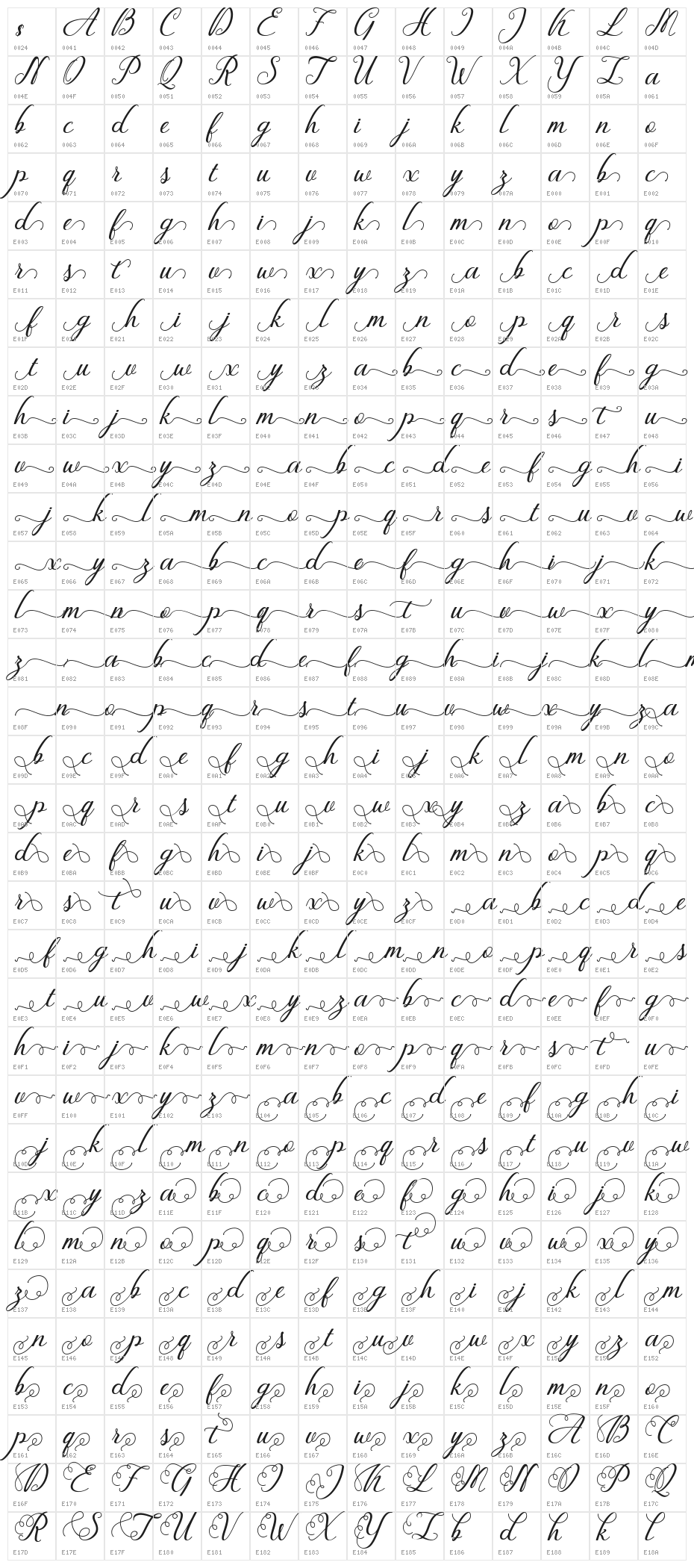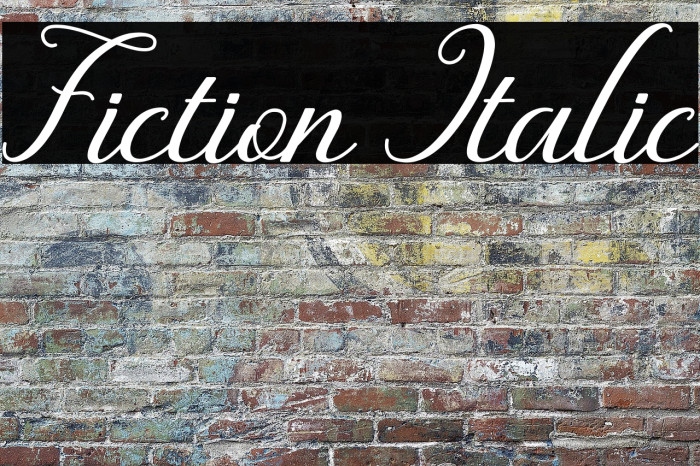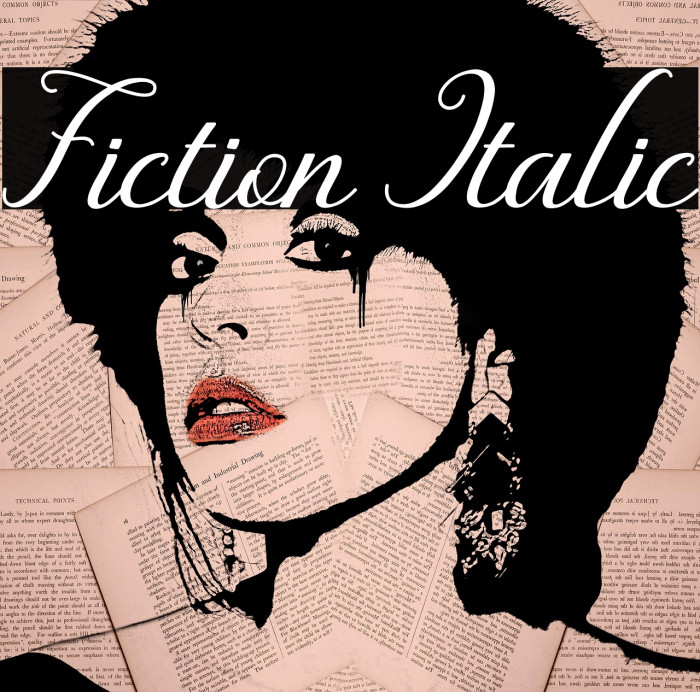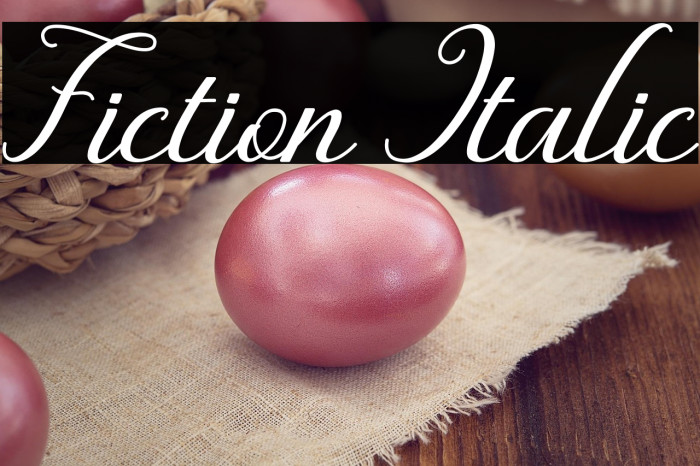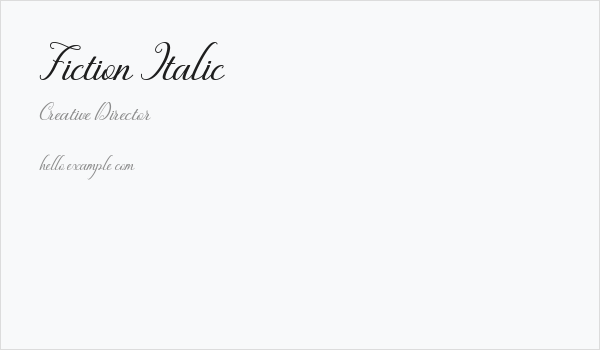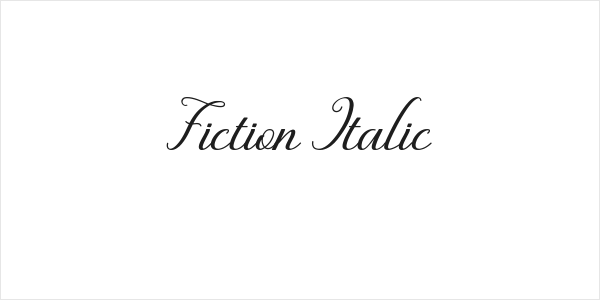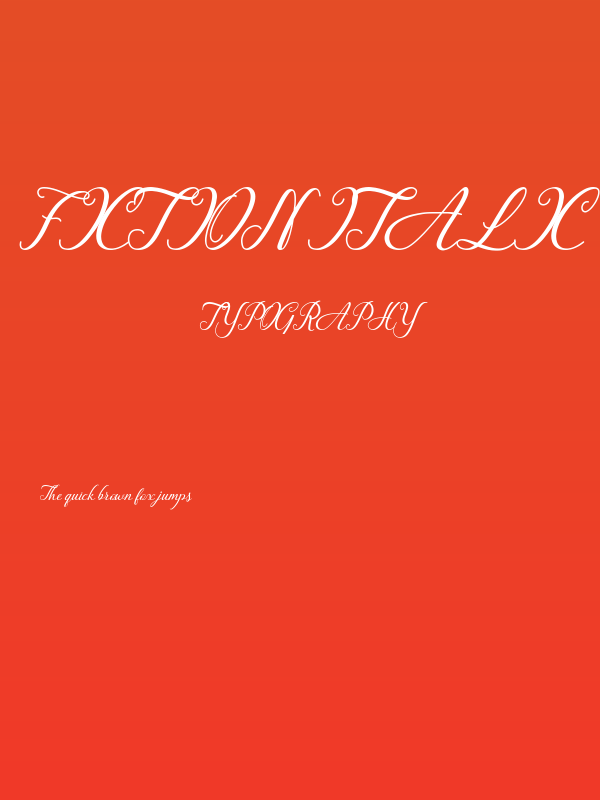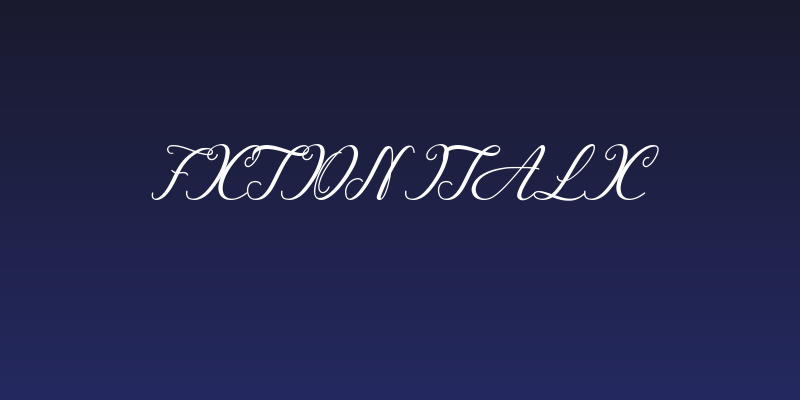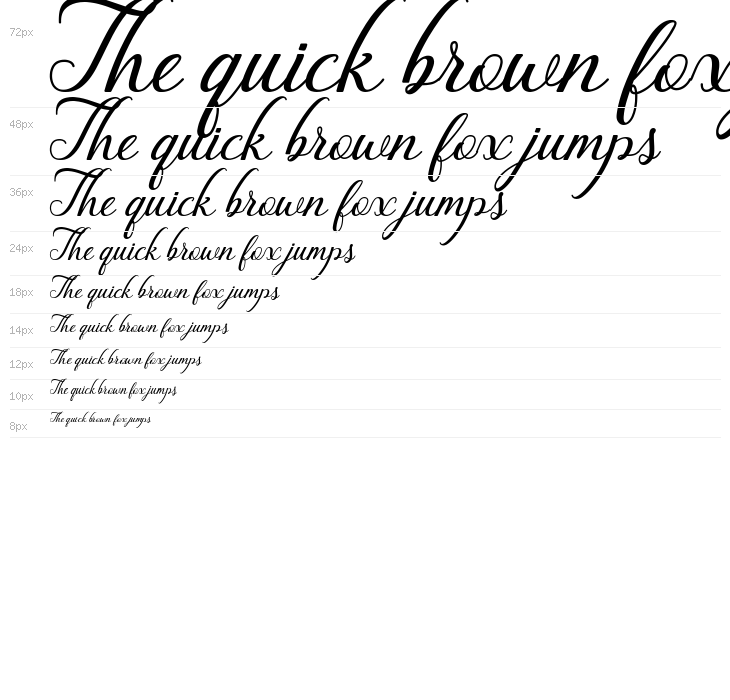
Fiction Italic Font
Fiction Italic Description
This elegant script font features flowing, interconnected letters with a distinct italic slant, giving it a sophisticated and graceful appearance. The uppercase letters are ornate, with elaborate swashes and flourishes that add a touch of luxury and refinement. The lowercase letters maintain a consistent style, with smooth curves and delicate loops that enhance readability while preserving the font's decorative nature. The font's overall design is reminiscent of classic calligraphy, making it suitable for formal and elegant applications. The single special character, the dollar sign, is designed with the same attention to detail, ensuring consistency across all characters.
| Proposed Projects | Ideal for wedding invitations, luxury branding, elegant packaging, and formal event programs. |